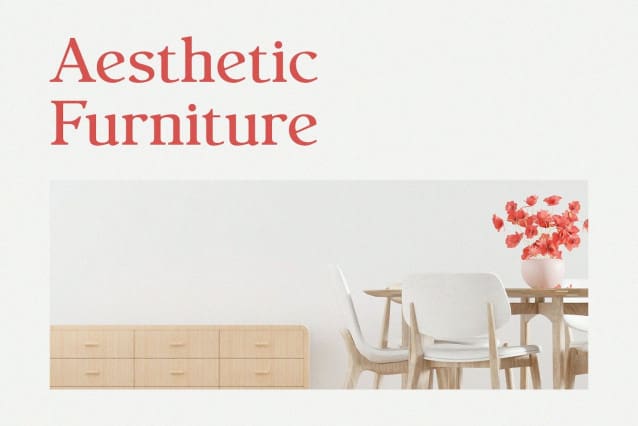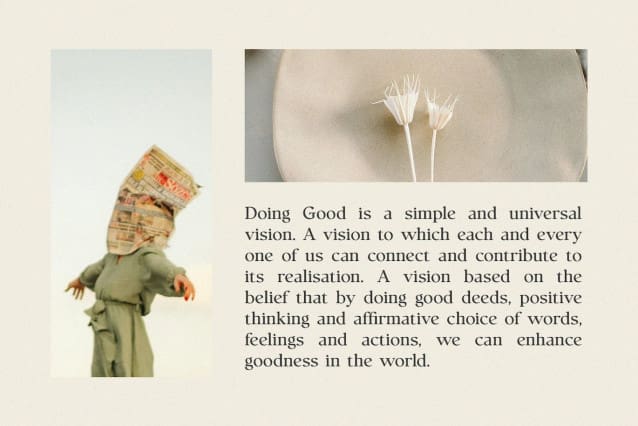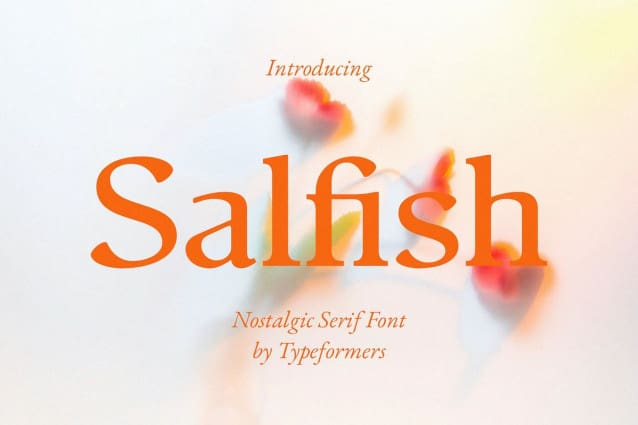
Salfish Font
Salfish Font – Nostalgic Serif Font, is a nostalgic and simple font, best used as a display for headings, logos, branding, magazines, product packaging and invitations.